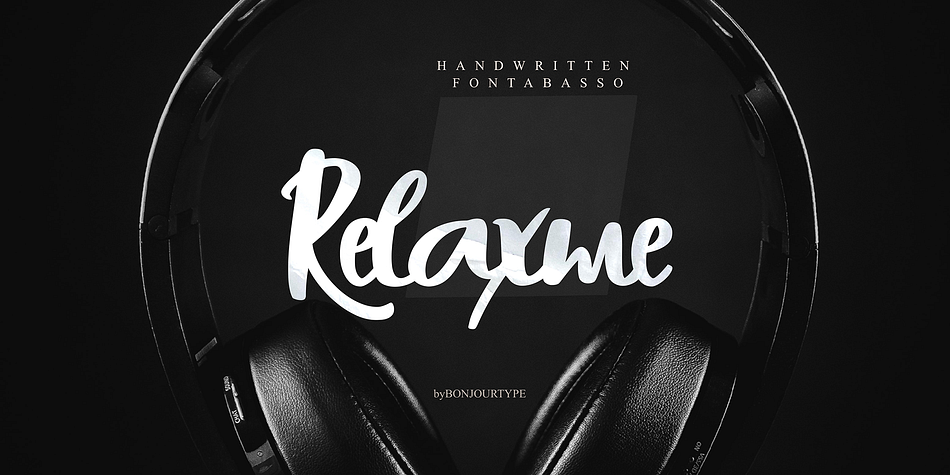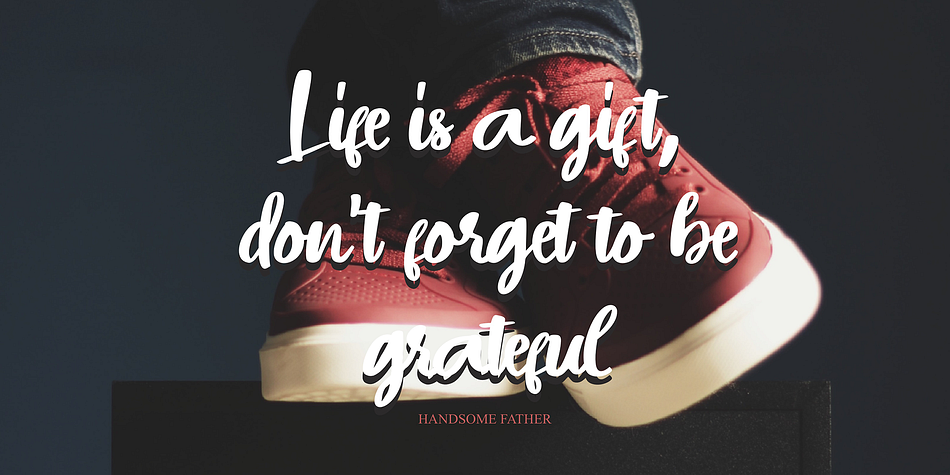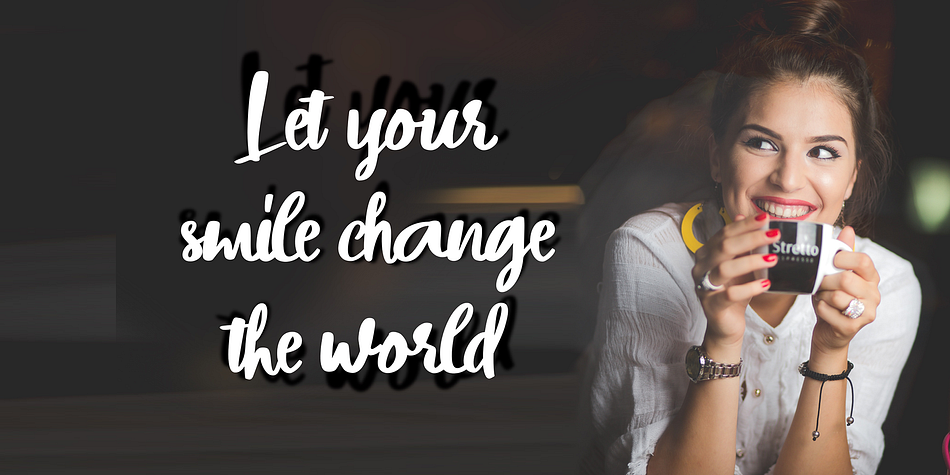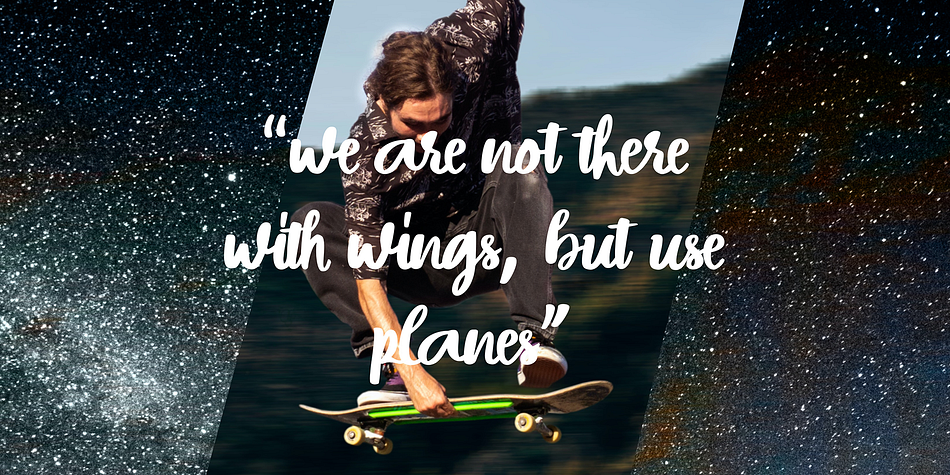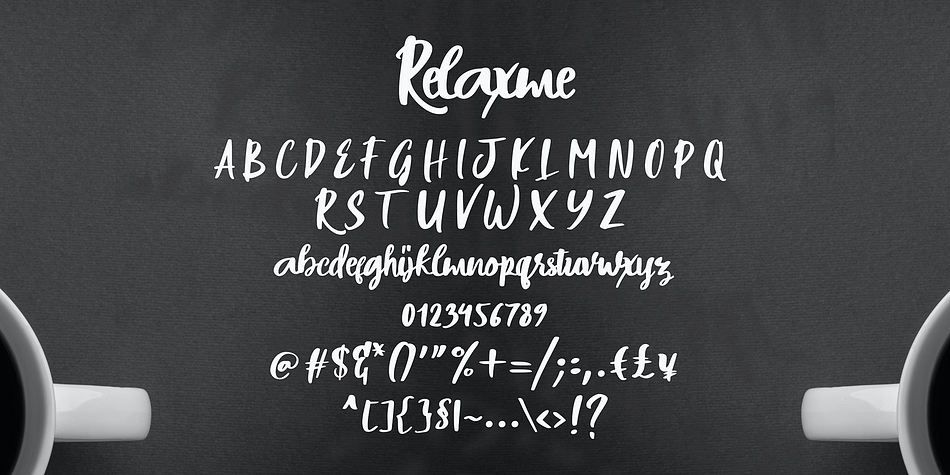
Designed by Rachma BT, Relaxme is a modern calligraphy and script font published by Bonjour Type.
Font that is perfect for quotes, cool logos and social media images and quotes.
Featured fonts: Uppercase, Lowercase, Numbers, Symbols, Accents, Alternative, Ligatures and also supports multilingual